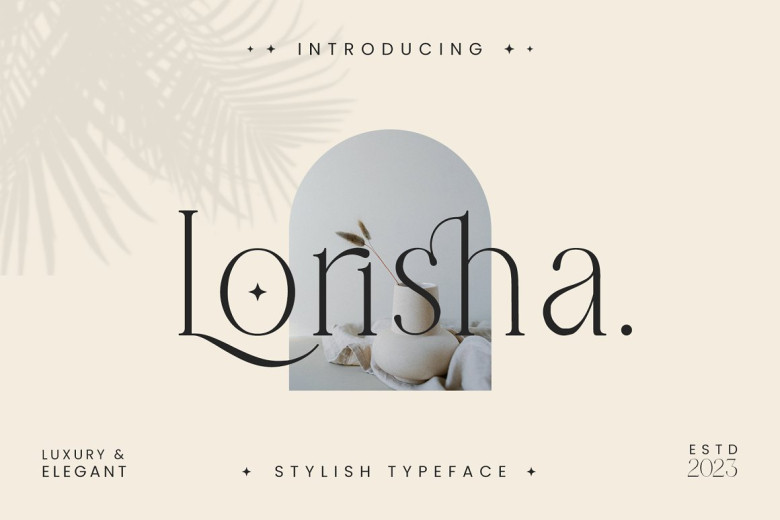
Lorisha Font
Lorisha Serif font is elegant, stylish, and well-balanced; perfect for invitation card designs with its subtle serifs that exude sophistication and elegance. Additionally, its stylish alternations makes this font perfect for any project that calls for it.
Lorisha Serif Font